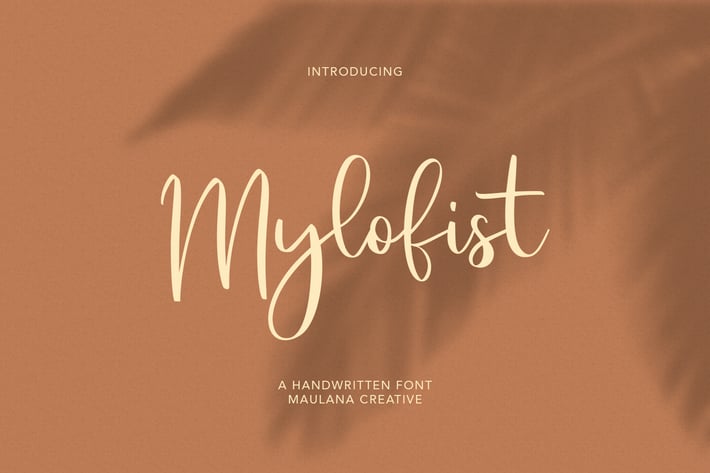
Mylofist Handwritten Script Font
Mylofist is casual handwritten font, with high contrast clean stroke, upright and fun character. It has Opentype features ligatures of character, To give you an extra creative work. Mylofist handwritten font support multilingual more than 100+ language. This font is good for logo design, Social media, Movie Titles, Books Titles, a short text even a long text letter and good for your secondary text font with sans or serif. Make a stunning work with Mylofist font.